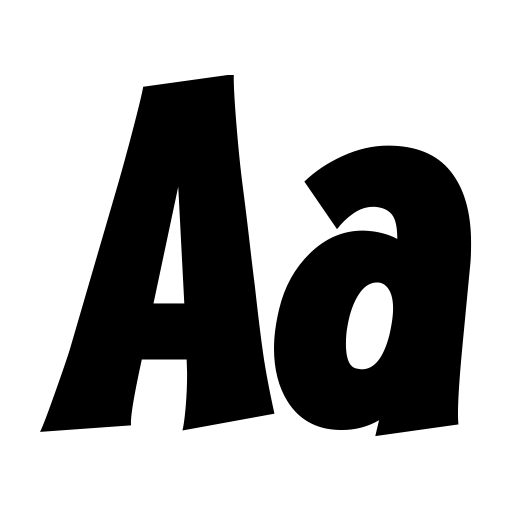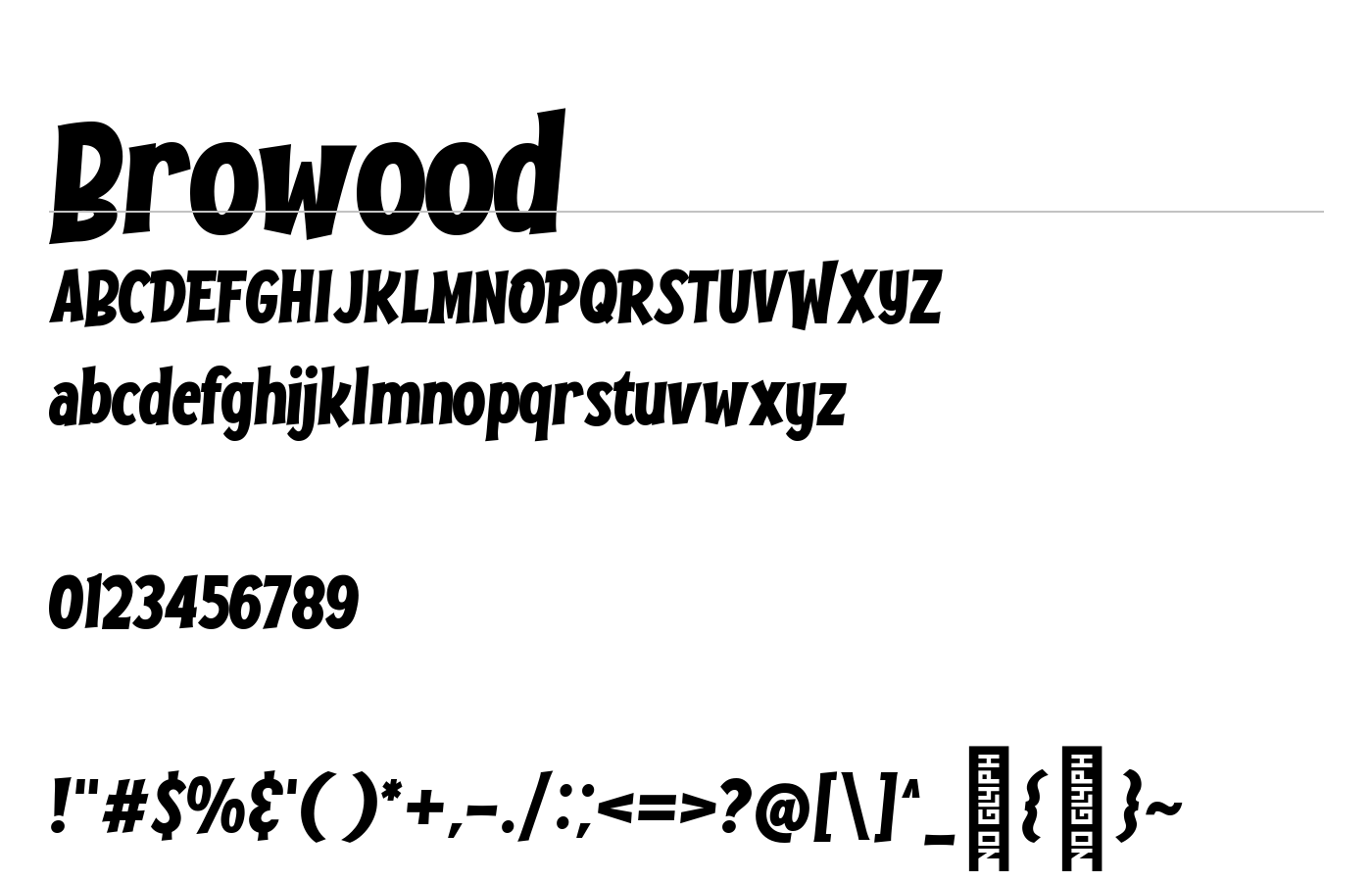
Browood is a bold, playful sans serif font with a lively, slightly condensed structure and a moderate x-height that gives it good readability. Its uneven strokes and quirky letter shapes create a fun, informal vibe, making it ideal for eye-catching headlines, posters, and playful branding. This font works well for designs that want to communicate creativity and energy with a modern, casual personality.
Browood Font
About Browood Font